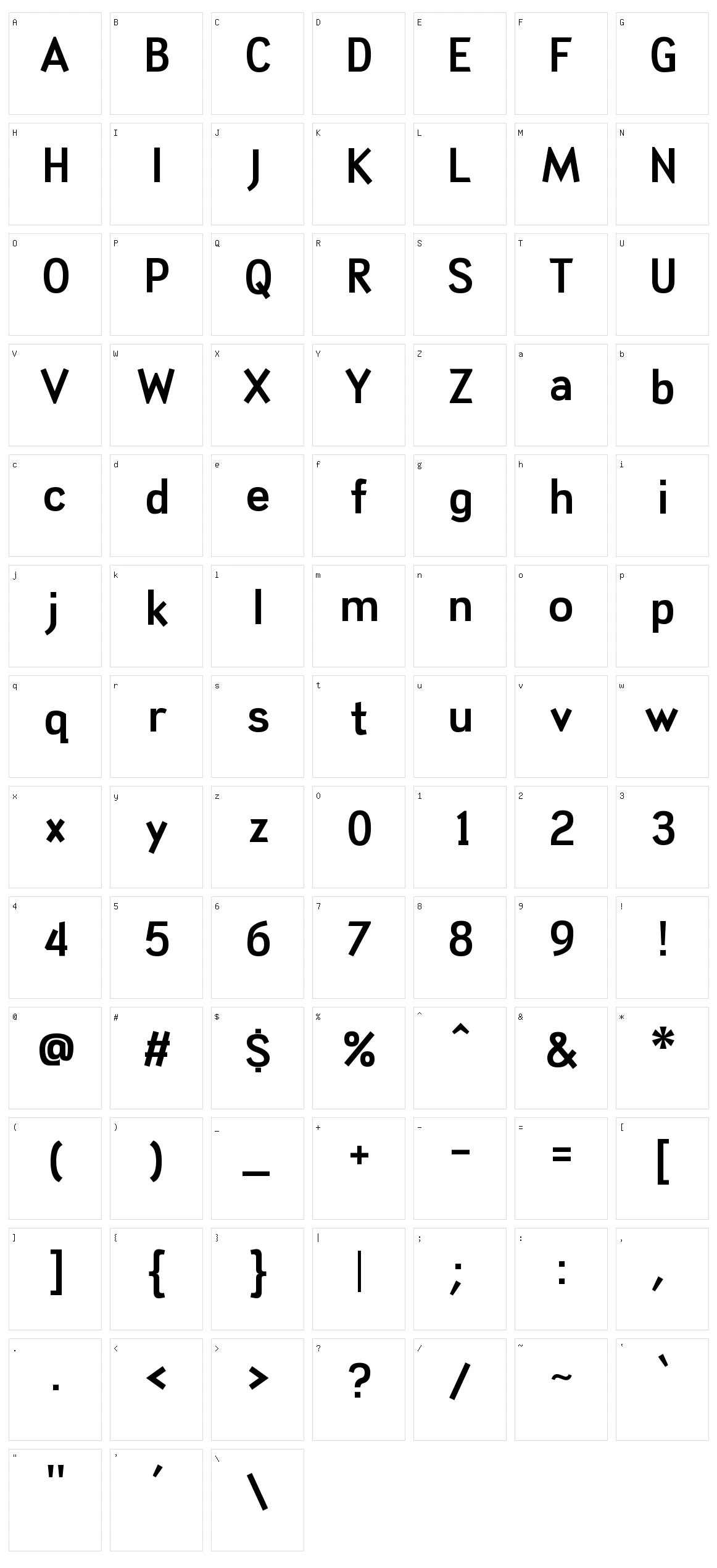
The free font Tin Doghouse is carefully designed by Darren Rigby, showcasing a thoughtful balance of creativity and usability and falls under the Sans serif font style. When you download the ZIP file, it contains only 24.19 KB of font files, making it lightweight and quick to download. Please review the license details below to understand permitted usage and distribution rights. If license information is not available, we recommend using this font for personal projects only or contacting the author directly for commercial usage permissions.